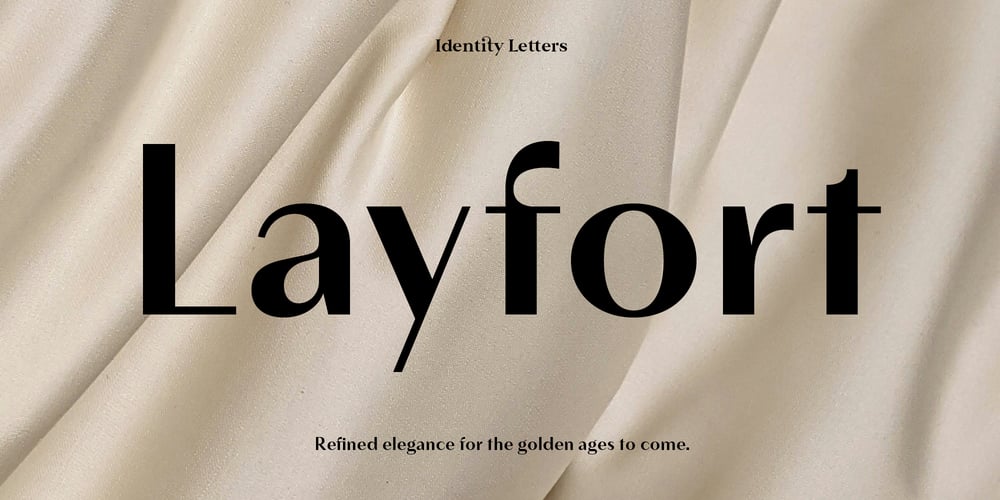
Layfort Font Family was designed by Moritz Kleinsorge and published by Identity Letters. Layfort contains 32 styles and family package options. What do you get when you cross Industrial Revolution with Art Déco? The raw force of steam-powered vessels with the panache of dashing streamliners? A sturdy industrial grotesque with a swanky stylized sans? We don’t know, but our Layfort is a strong contender. It’s a contrasted sans-serif typeface with old-style proportions: varying letter widths create a more vivid texture than your usual contemporary sans, and the true italics are narrower than the uprights. Layfort is elegant enough for fashion, art, and luxury; yet sufficiently sincere for serious business. And at 16 styles & 750 glyphs, it’s ready for complex typographic demands (try the round dots at SS09). Let your designs fly!